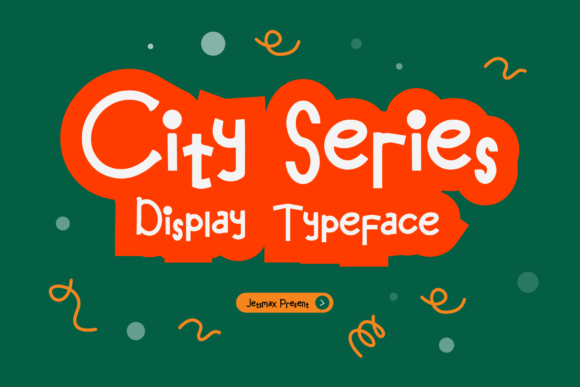
Step into the extraordinary realm of visual expression with City Series Font, a display font family that bursts with character and charm. This remarkable creation by Jetsmax Studio is not just a collection of letters; it's an invitation to embark on a typographic adventure where imagination knows no bounds.
Picture this: a font that radiates undeniable cool and a touch of delightful quirkiness, capable of transforming your designs into captivating masterpieces. With its playful strokes and whimsical appeal, City Series Font is the spark that ignites creativity and breathes life into your projects. Unleash its energy and marvel as it elevates your designs, captivating your audience and leaving a lasting impression.
Immerse yourself in the versatility of City Series Font, a font family designed to dance effortlessly across a multitude of projects. Let your creativity soar as you adorn your logos, posters, branding materials, and social media graphics with its enchanting presence. Its ability to harmonize with a diverse range of styles and themes makes it the perfect partner for any design endeavor, adding a dash of whimsy and sophistication.
With City Series Font as your ally, transcend the ordinary and embark on a journey of typographic excellence. Let its unique charm infuse your designs with an irresistible allure, captivating your audience with its playful spirit and undeniable charm. Download City Series Font today and unlock the gateway to a world where typography takes center stage. Embrace the extraordinary and let your designs shine brighter than ever before.